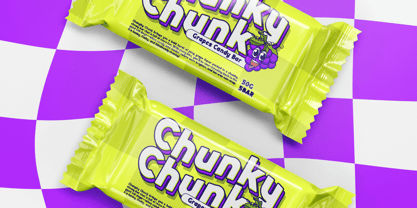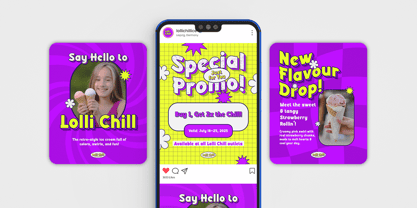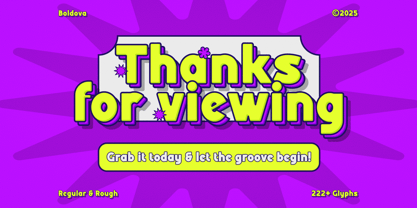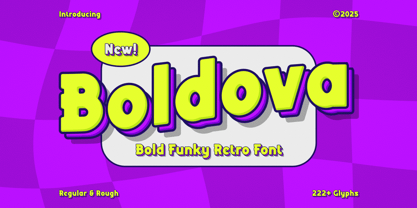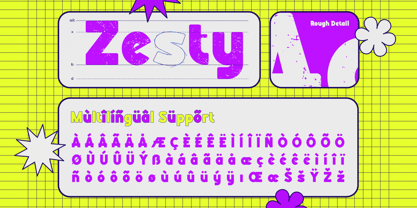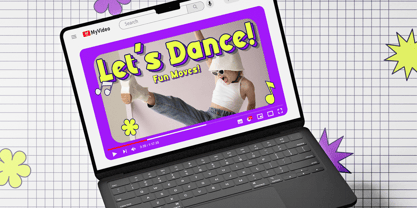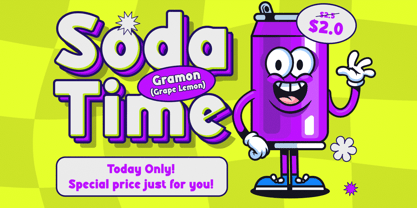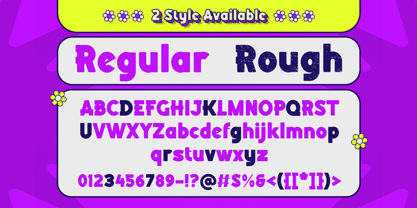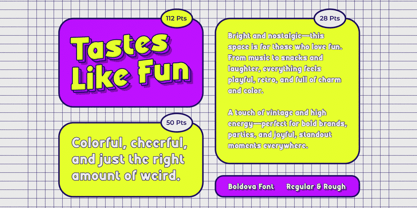
Boldova
A funky, retro-inspired display font built to make bold moves.
Boldova – Bold Funky Retro Font brings you a nostalgic 70s–90s energy with thick, exaggerated letterforms and fun curves that command attention. It’s perfect for designers who want a typeface that grooves with personality, funk, and confident vibes.
🎯 Style & Energy
• Bold, funky, and eye-catching
• Retro soul meets modern flexibility
• Groovy, expressive, and full of swagger
🛍️ Intended Market & Vibe
• Perfect for retro branding, fun product packaging, and bold social media graphics
• Suits apparel design, vintage posters, Instagram carousels, and record label artwork
🔠 Letterform Structure
• Chunky, curvy, and full-bodied
• Funky outlines with nostalgic movement
• Inspired by pop-art and 70s funky logotypes
🌟 Best Use Cases
• Logo and brand identity for fashion or lifestyle
• Album covers, TikTok or Instagram posts, vintage merchandise
• Poster headlines, product labels, streetwear graphics, retro event promos
Turn every project into a bold retro statement.
Boldova – Bold Funky Retro Font adds that unforgettable funky flair that your designs are craving. If you're branding for impact or designing for nostalgia, Boldova makes your message groovy, bold, and impossible to ignore.
Bold & Confident Personality
Designed to help brands and messages stand out in any space.
Full of Funky Flavor
Ideal for designers looking for groovy, pop-inspired type.
Versatile for Bold Display Needs
While perfect for vintage, Boldova feels fresh in modern digital spaces too.
Optimized for Visual Impact
From thumbnails to posters, it delivers clarity with style.
Great Font Pairing Potential
Pairs well with thin sans-serifs, condensed fonts, or handwritten styles for contrast.
Boldova – Bold Funky Retro Font delivers impact, character, and nostalgic joy in every glyph. Whether you're crafting a throwback poster, building a bold brand, or making your social feed pop, Boldova is ready to bring the funk.